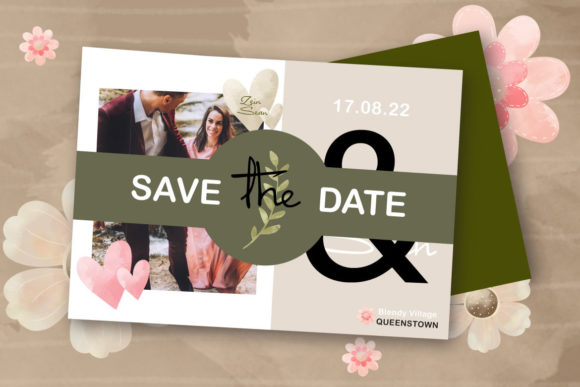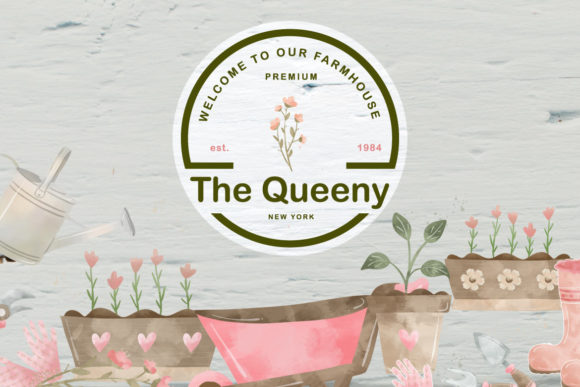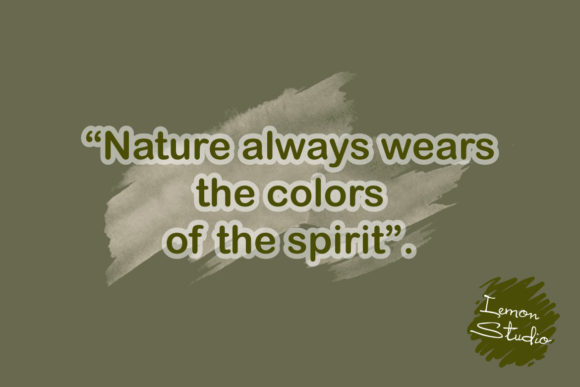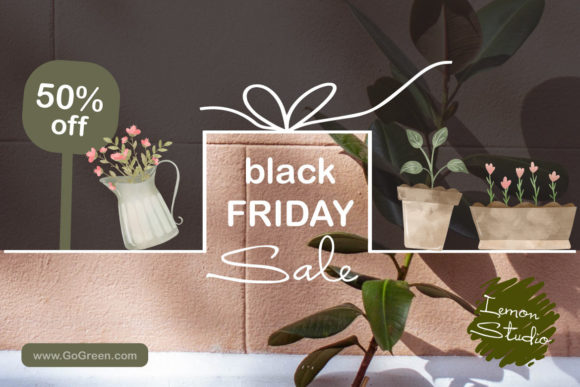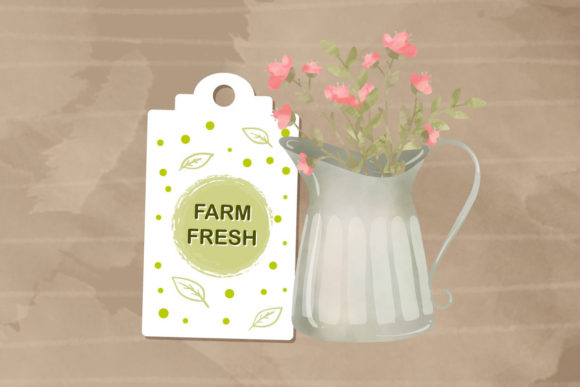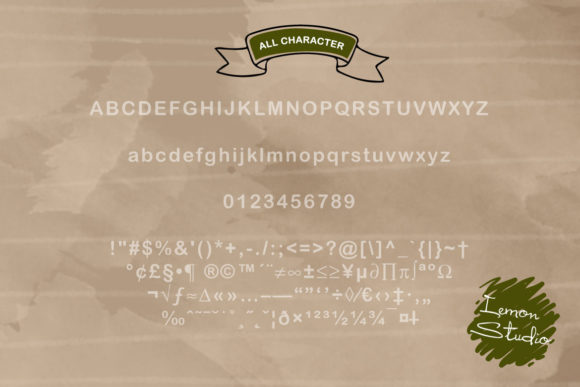
Introducing Greenity Font: The Perfect Farmhouse Sans Serif for Your Design Needs
Are you a designer or crafter looking for a font that embodies the simplicity and charm of farmhouse style? Look no further than Greenity Font, a beautiful sans serif font designed to complement any script font and add a touch of rustic elegance to your projects.
What is Greenity Font?
Greenity Font is a farmhouse sans serif font that is perfect for a variety of design applications, from signs and headings to logotypes and labels. Its simple, clean lines and classic feel make it an excellent choice for projects that require a lot of text, such as wedding invitations, tags, and more.
Key Features of Greenity Font
- Farmhouse style: Greenity Font is designed to evoke the simplicity and charm of traditional farmhouse signs, making it perfect for rustic-themed projects.
- Sans serif: The font’s sans serif design ensures that it remains clean and easy to read, even at small sizes.
- Versatile: Greenity Font can be used for a wide range of design applications, from headings and logotypes to labels and tags.
- Complements script fonts: The font’s classic feel makes it an excellent pairing for script fonts, adding a touch of balance and harmony to your designs.
Greenity Font is an excellent choice for designers and crafters who want to add a touch of farmhouse charm to their projects. Whether you’re creating custom signs, wedding invitations, or labels, this font is sure to impress. Its simplicity and elegance make it easy to use and pair with other fonts, ensuring that your designs look professional and polished.
Project Ideas for Greenity Font
- Farmhouse signs: Use Greenity Font to create custom signs for your home or business, adding a touch of rustic charm to your decor.
- Wedding invitations: Pair Greenity Font with a script font for a beautiful and elegant wedding invitation that sets the tone for your special day.
- Labels and tags: Use Greenity Font to create custom labels and tags for your products or gifts, adding a personal touch to your packaging.
- Logotypes: Use Greenity Font to create a custom logotype for your business or brand, adding a touch of farmhouse charm to your marketing materials.
Why Choose Greenity Font?
With so many fonts to choose from, why should you choose Greenity Font for your design needs? Here are just a few reasons:
- Unique style: Greenity Font offers a unique and distinctive style that sets it apart from other sans serif fonts.
- Elegant and simple: The font’s classic feel and simple design make it easy to use and pair with other fonts.
- High-quality: Greenity Font is a high-quality font designed to deliver excellent results in a variety of design applications.
| Font Name | Greenity Font |
| Author | WildaKhairunnisa |
Greenity Font is a beautiful and versatile sans serif font that is perfect for designers and crafters looking to add a touch of farmhouse charm to their projects. With its simple and elegant design, this font is sure to impress and can be used for a wide range of design applications. Whether you’re creating custom signs, wedding invitations, or labels, Greenity Font is an excellent choice.